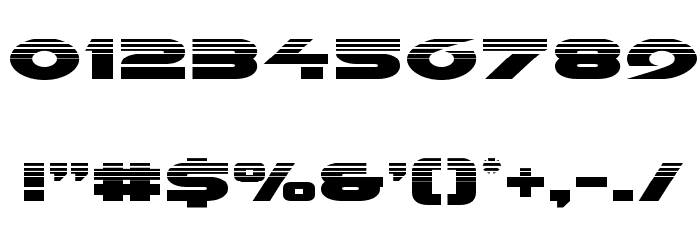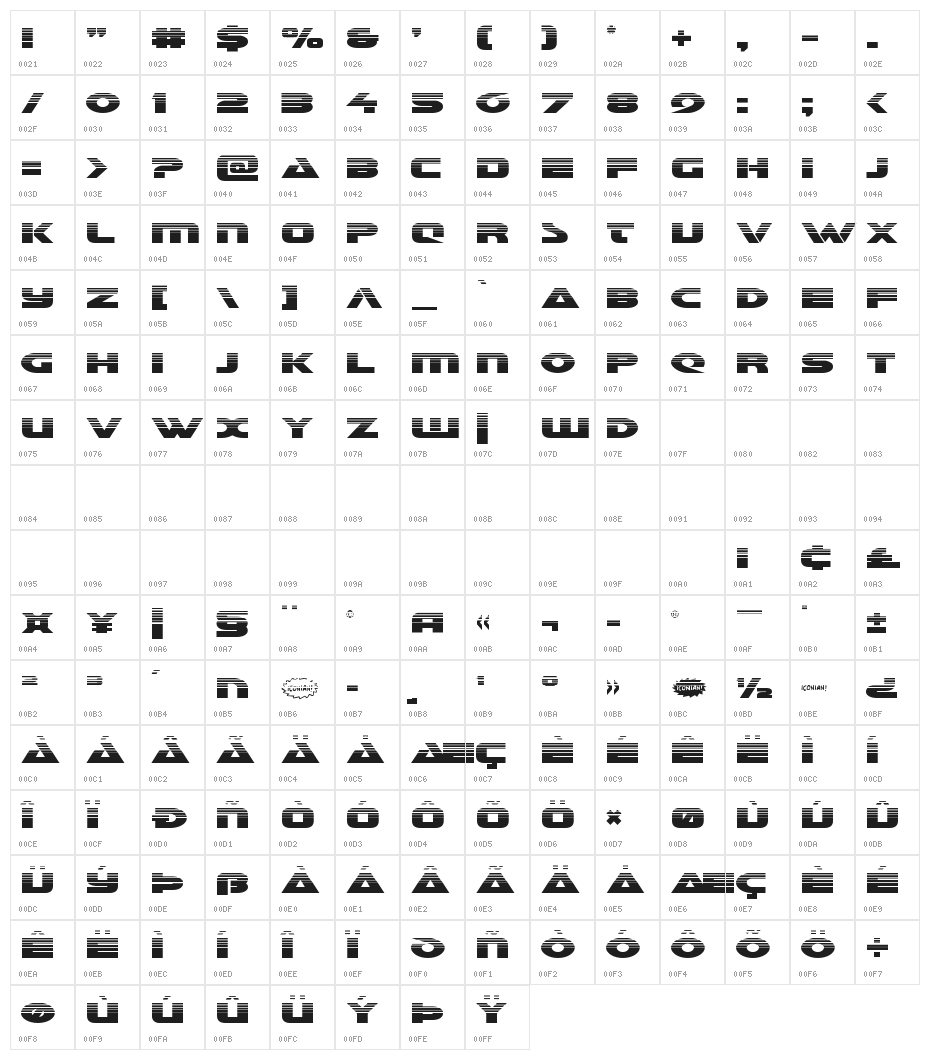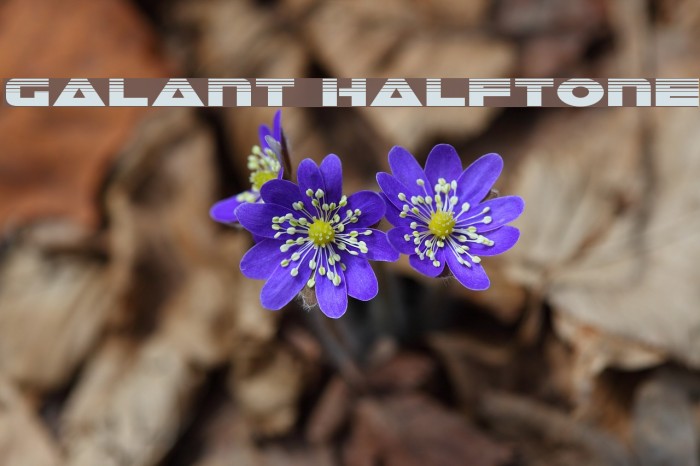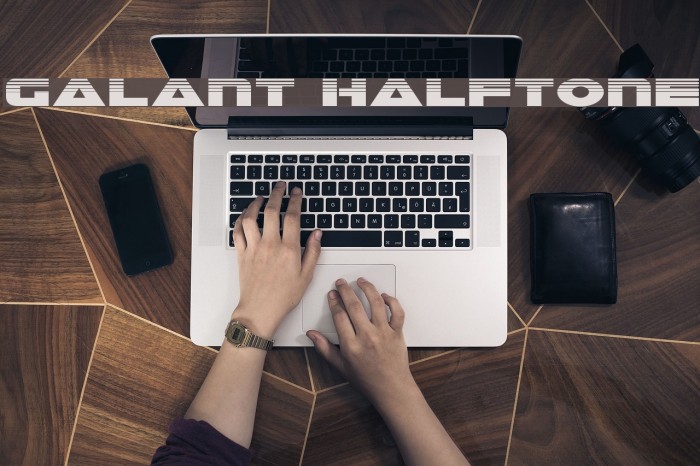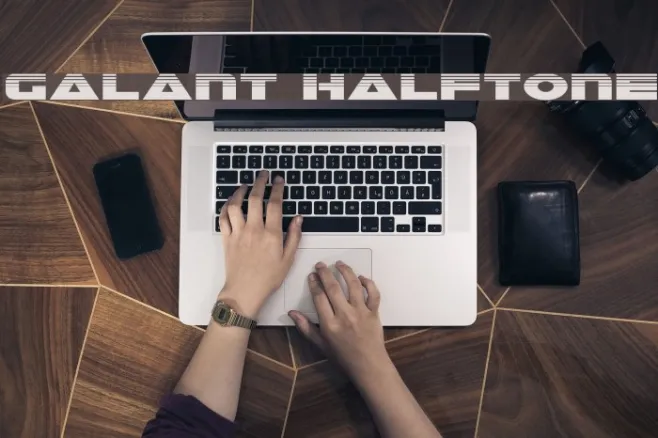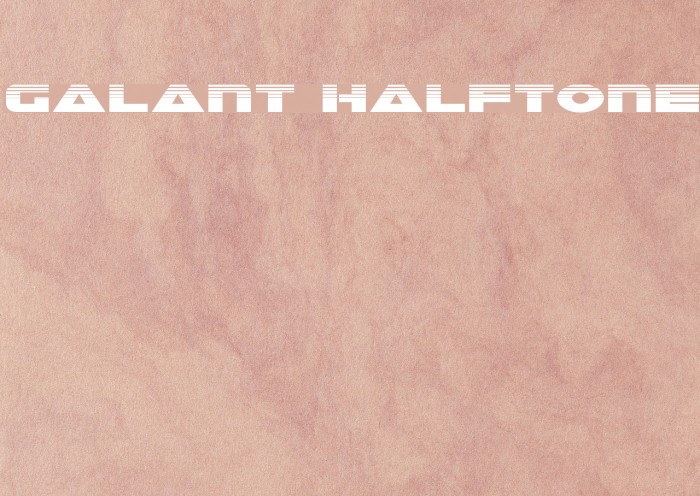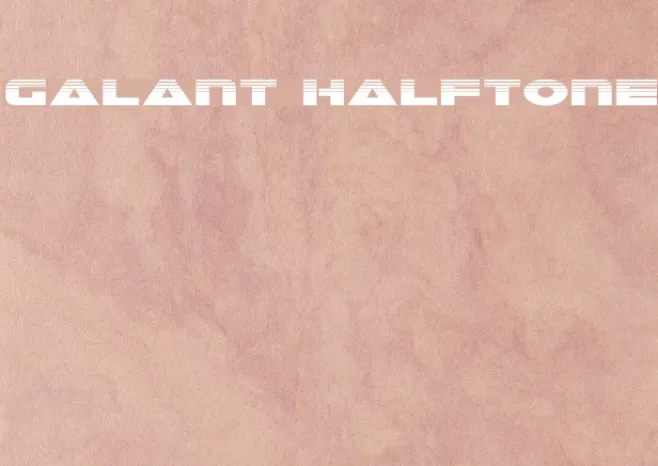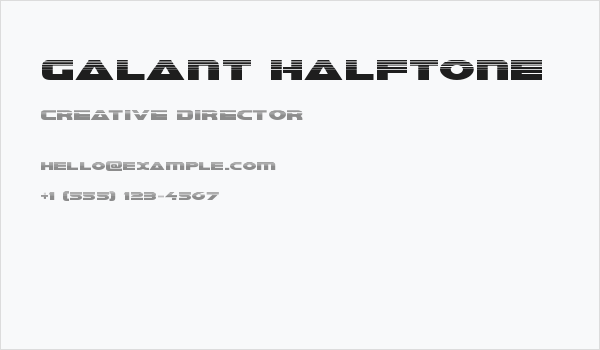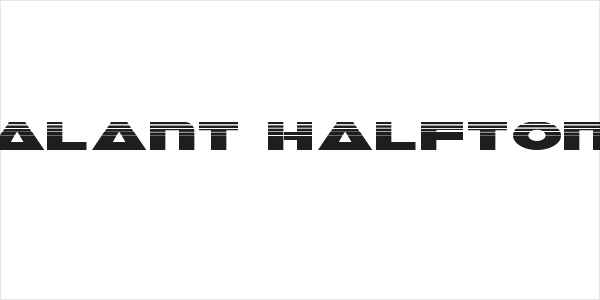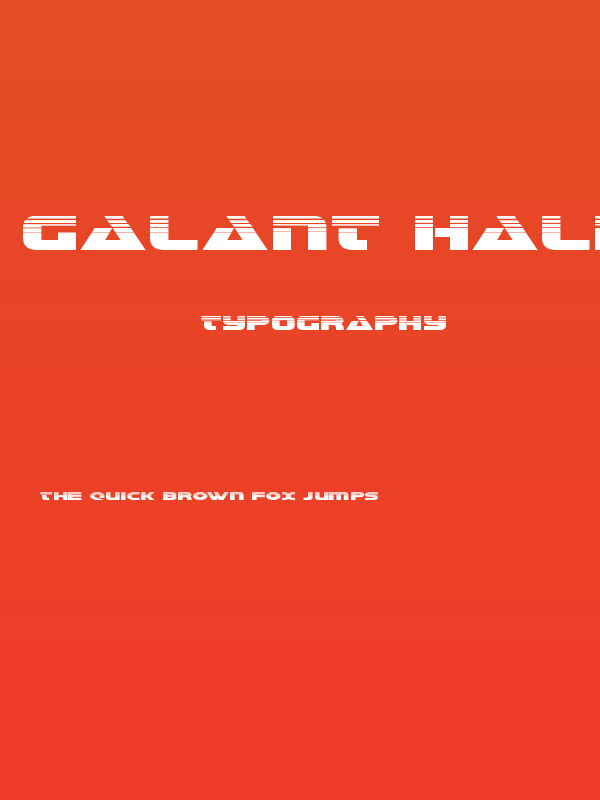
Galant Halftone Font
Galant Halftone Description
This font features a bold and striking design with a halftone effect that gives it a unique, futuristic appearance. The characters are constructed with horizontal lines that create a sense of movement and energy. The uppercase and lowercase letters maintain a consistent style, with sharp angles and clean edges. The numbers and special characters follow the same design principles, ensuring a cohesive look across all elements. This font is ideal for projects that require a modern and dynamic aesthetic.
GALANT-HALFTONE UPPERCASE
GALANT-HALFTONE LOWERCASE
GALANT-HALFTONE OTHER CHARS
| Proposed Projects | Ideal for branding, posters, album covers, and digital media that require a modern, energetic look. |